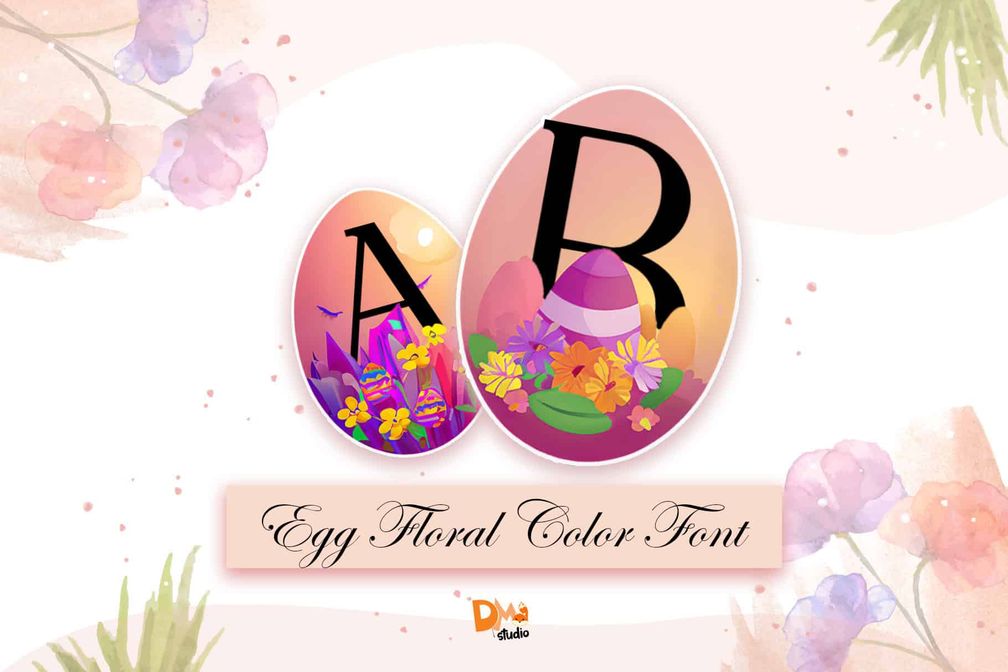
Egg Floral
Egg Floral – Decorative Easter Monogram Design
Egg Floral is a delightful and elegant Easter-themed monogram design that combines the charm of floral elements with the symbolic shape of an egg. Perfect for spring crafting, Easter gifts, festive decor, and personalized projects, this design brings a whimsical yet graceful feel to your seasonal creations.
• Easter-Themed Elegance: Beautiful floral patterns arranged in the shape of an egg, ideal for seasonal and religious celebrations.
• Perfect for Personalization: Center space allows for adding initials, names, or short phrases in monogram style.
• High-Resolution & Scalable: Crisp lines and smooth curves make it suitable for large or small format use.